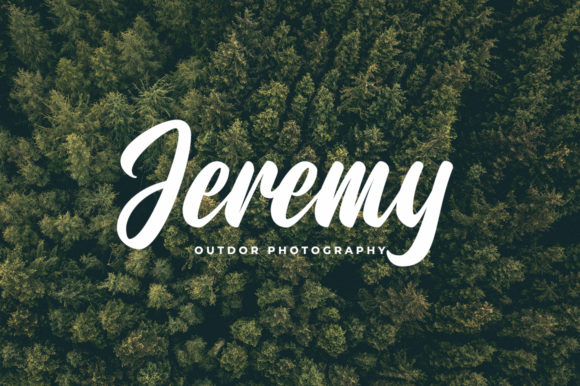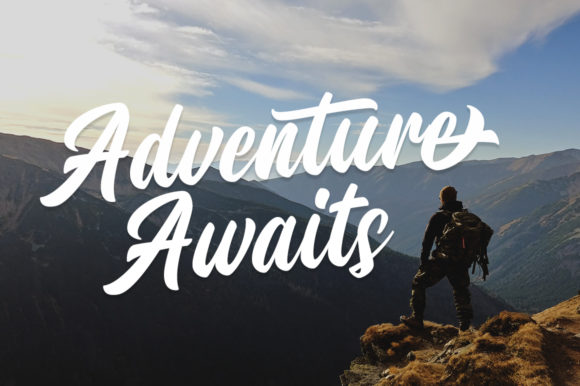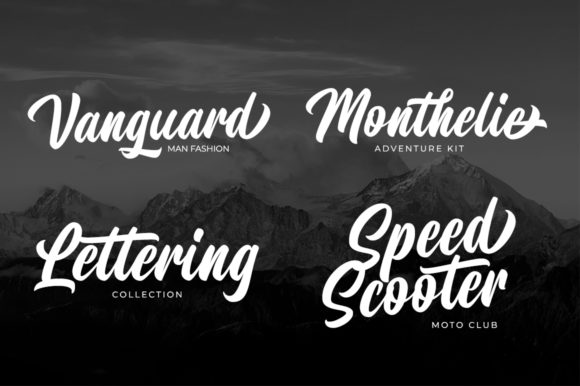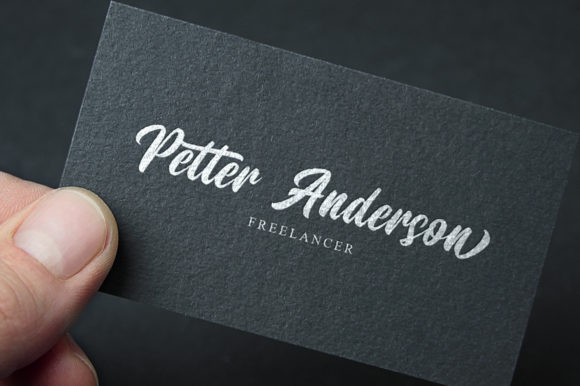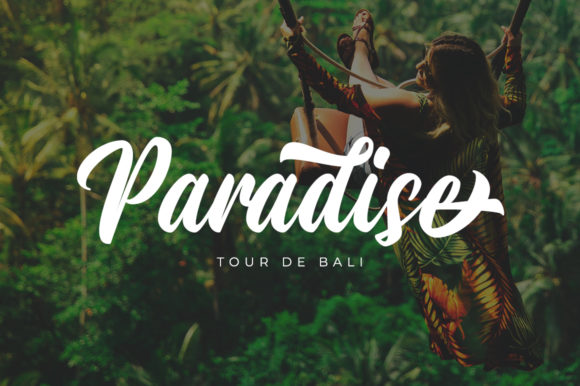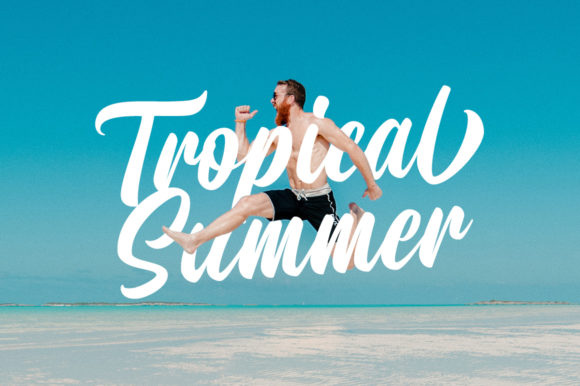
Monteners Font
About Monteners Font
Monteners Script is a beautiful and elegant script font. It is suitable for any design project such as logos, brandings, posters, headers, and much more!